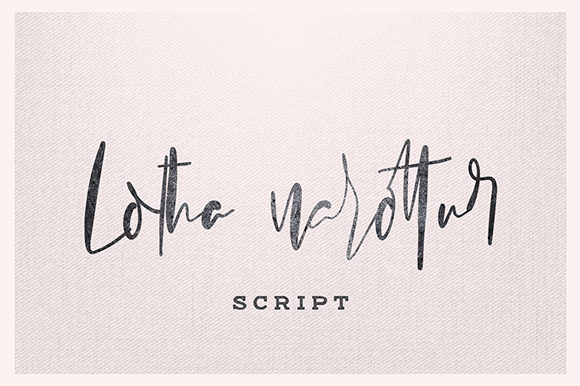
Lotha Narottur Font
Encounter Lotha Narottur, a captivating handwritten font that dances across your designs with a delicate touch. Its graceful strokes and lighthearted spirit bestow an aura of authenticity, adding a personal flair to your creative endeavors.
Feel the warmth of Lotha Narottur's embrace as it transforms your designs into captivating expressions of artistry. Its elegant curves and playful personality infuse life into every word, captivating your audience with a charm that lingers.
Immerse yourself in a world of endless creative possibilities with Lotha Narottur. Its versatility knows no bounds, adapting seamlessly to a myriad of design styles and projects. From whimsical invitations to heartfelt greetings, Lotha Narottur weaves its magic, leaving an imprint of elegance and charm.
With Lotha Narottur as your creative companion, you'll embark on a journey of self-expression and visual delight. Its charming imperfections and unique character will elevate your designs, making them stand out from the mundane and ordinary.
Welcome Lotha Narottur into your creative arsenal and unlock a realm of boundless inspiration. Let its delicate strokes ignite your imagination and guide you towards design masterpieces that captivate and enthrall.